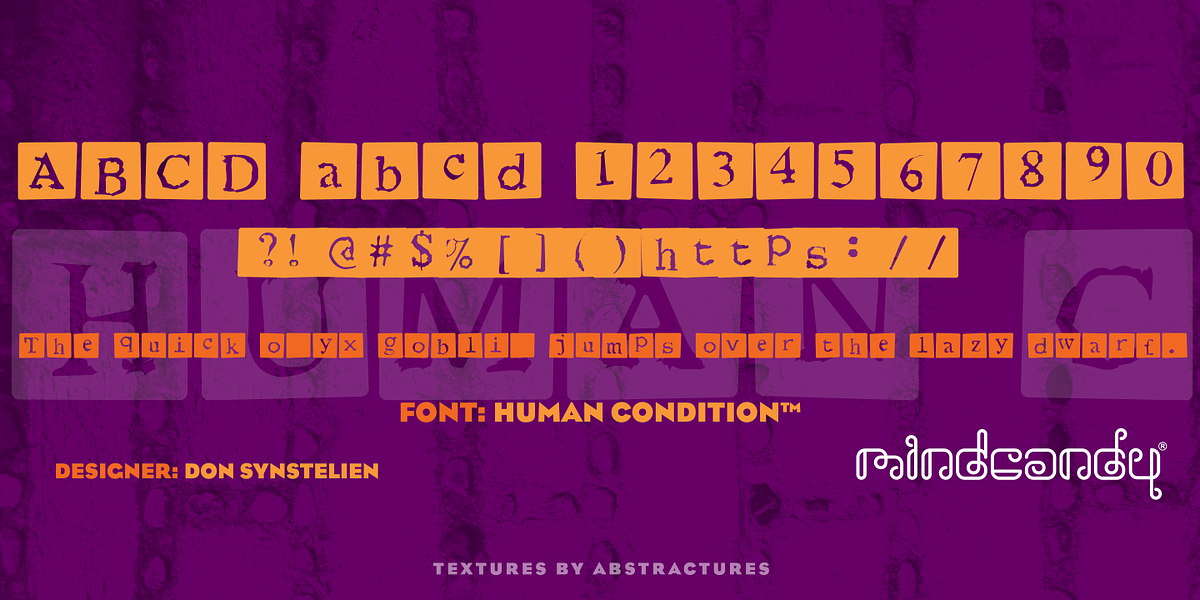
Human Condition™
This typewriter font evokes a sense of nostalgia with its retro design. It is categorized as a novelty typeface due to its unique and playful character.